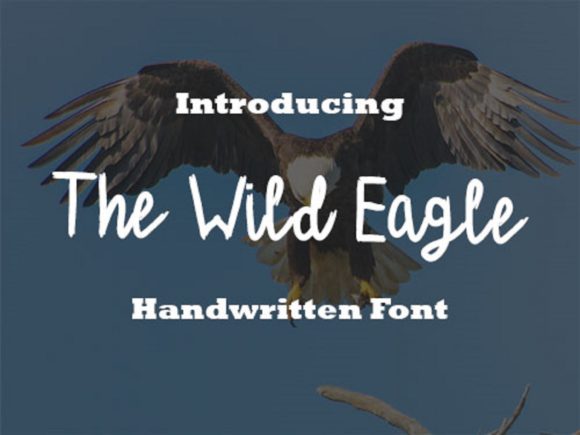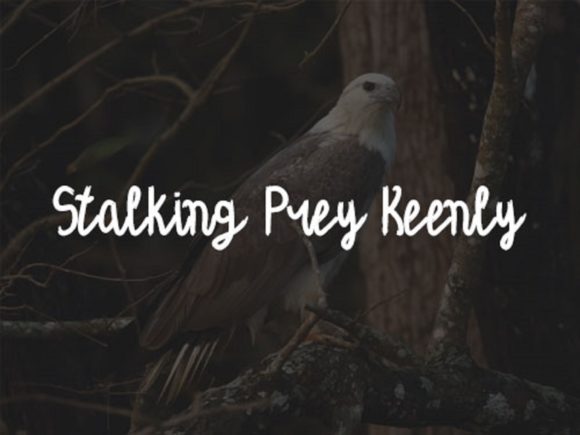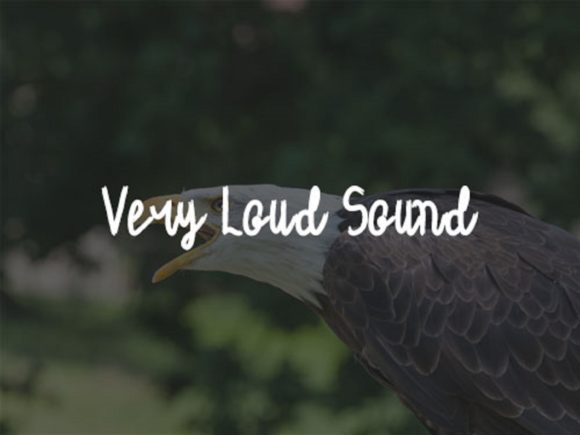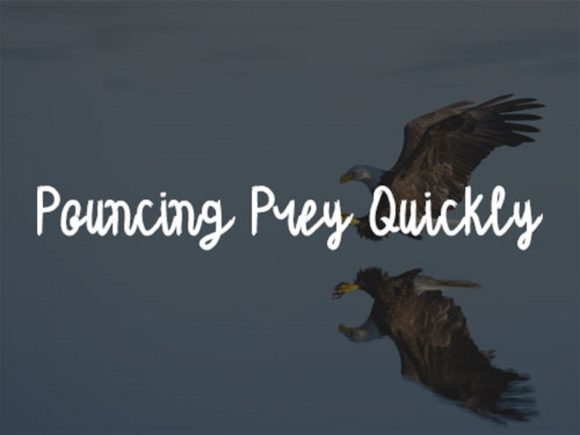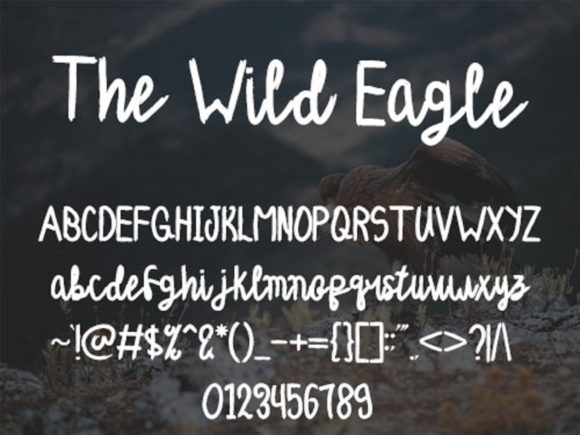
The Wild Eagle Font
About The Wild Eagle Font
The Wild Eagle is an awesome handwritten font. Beautifully rounded and skillfully designed to impress, this font will easily become one of your favorites!